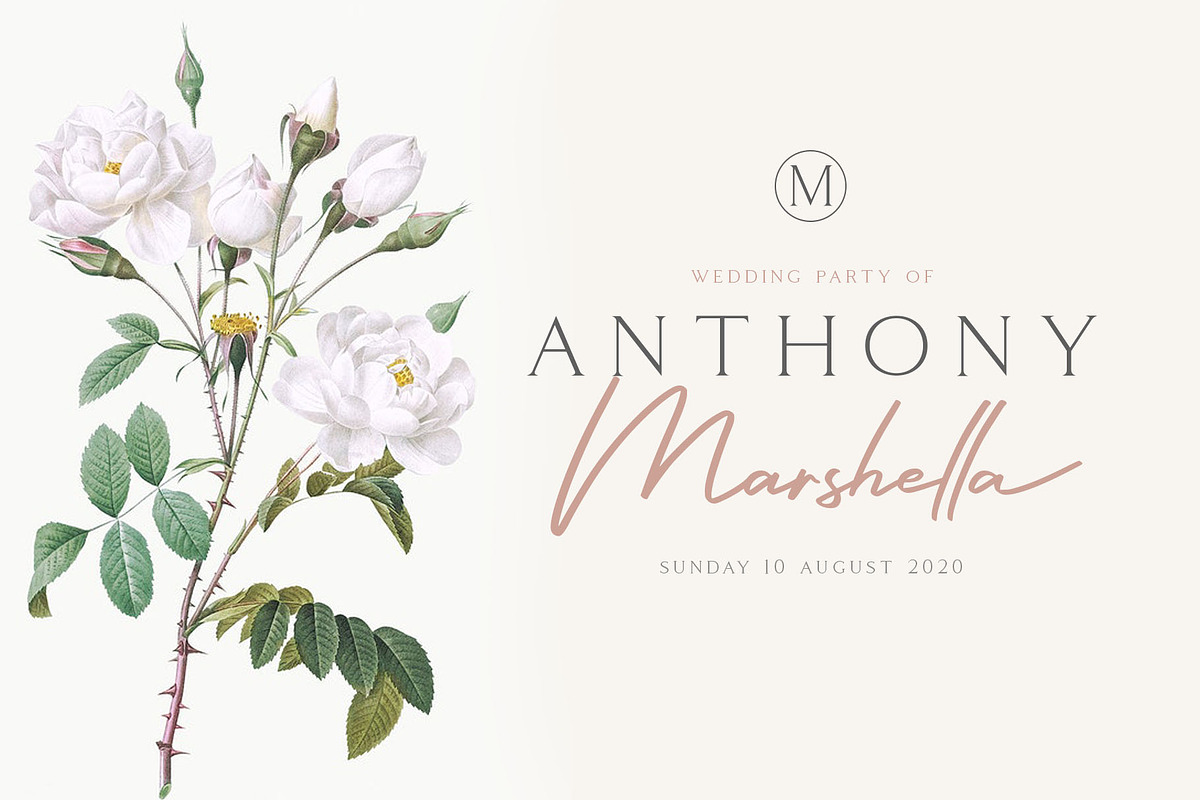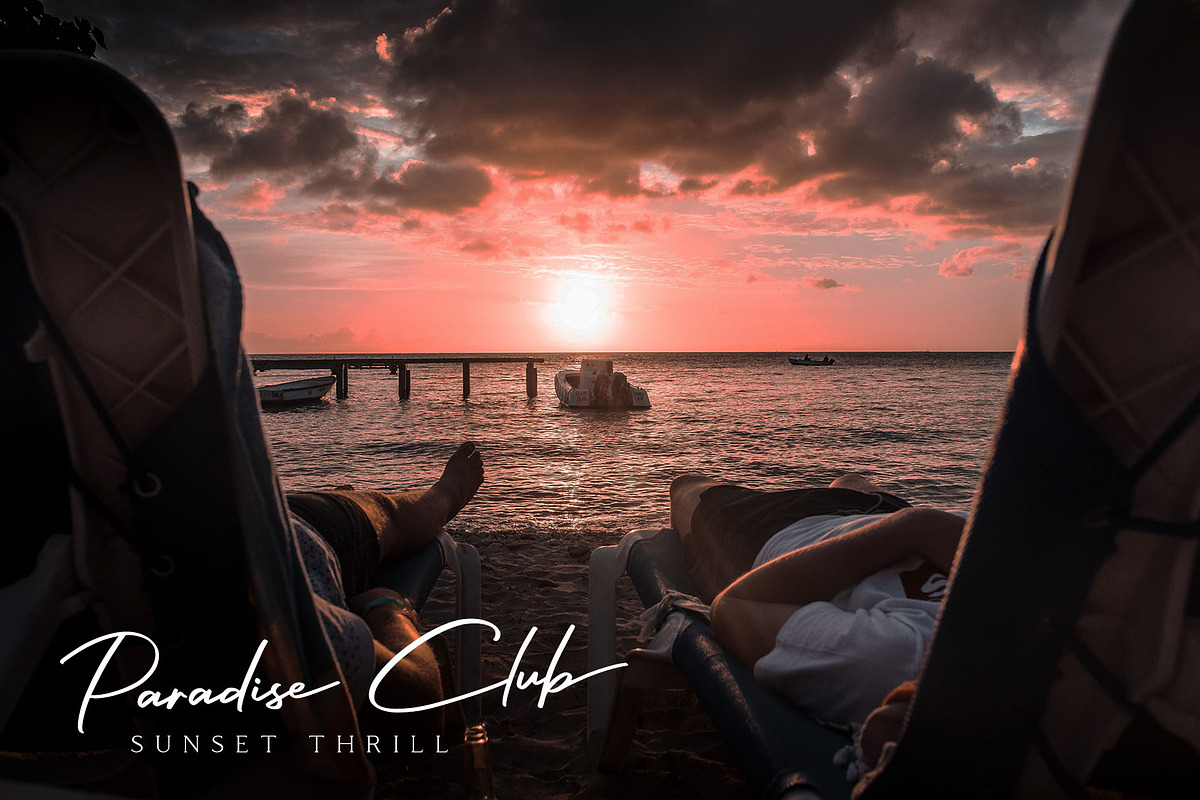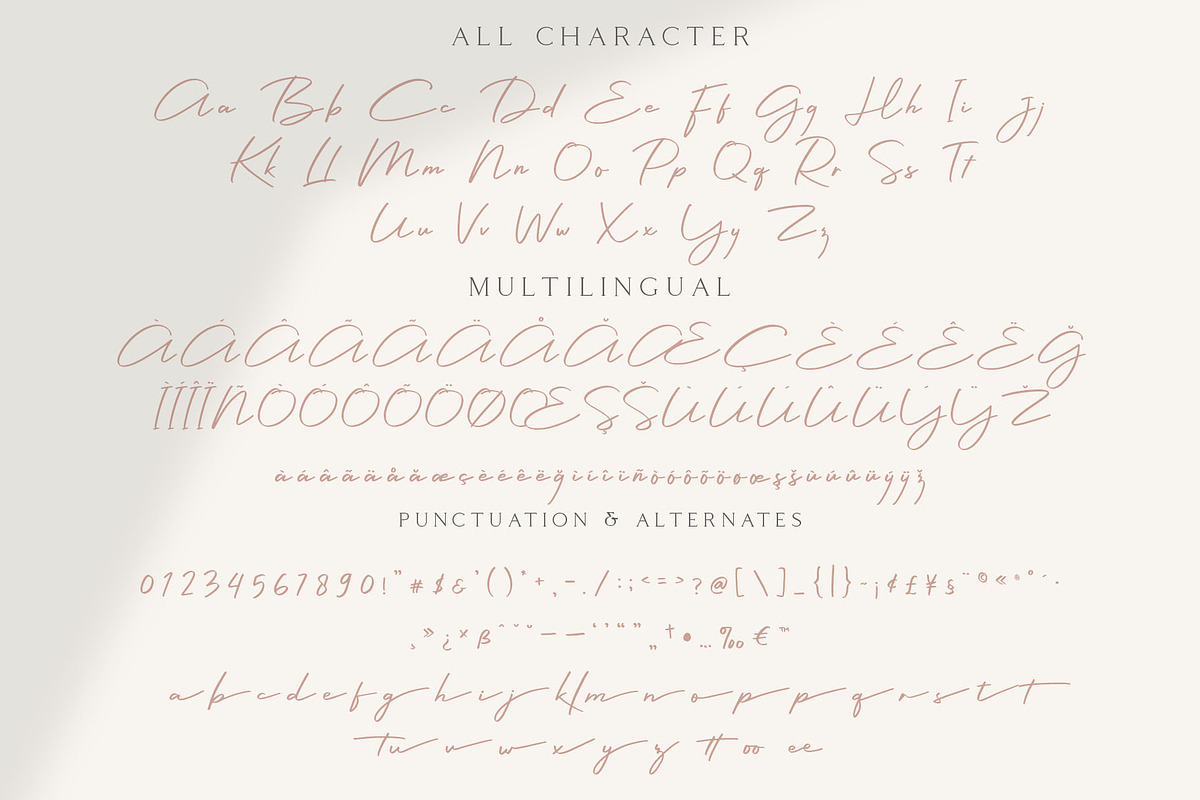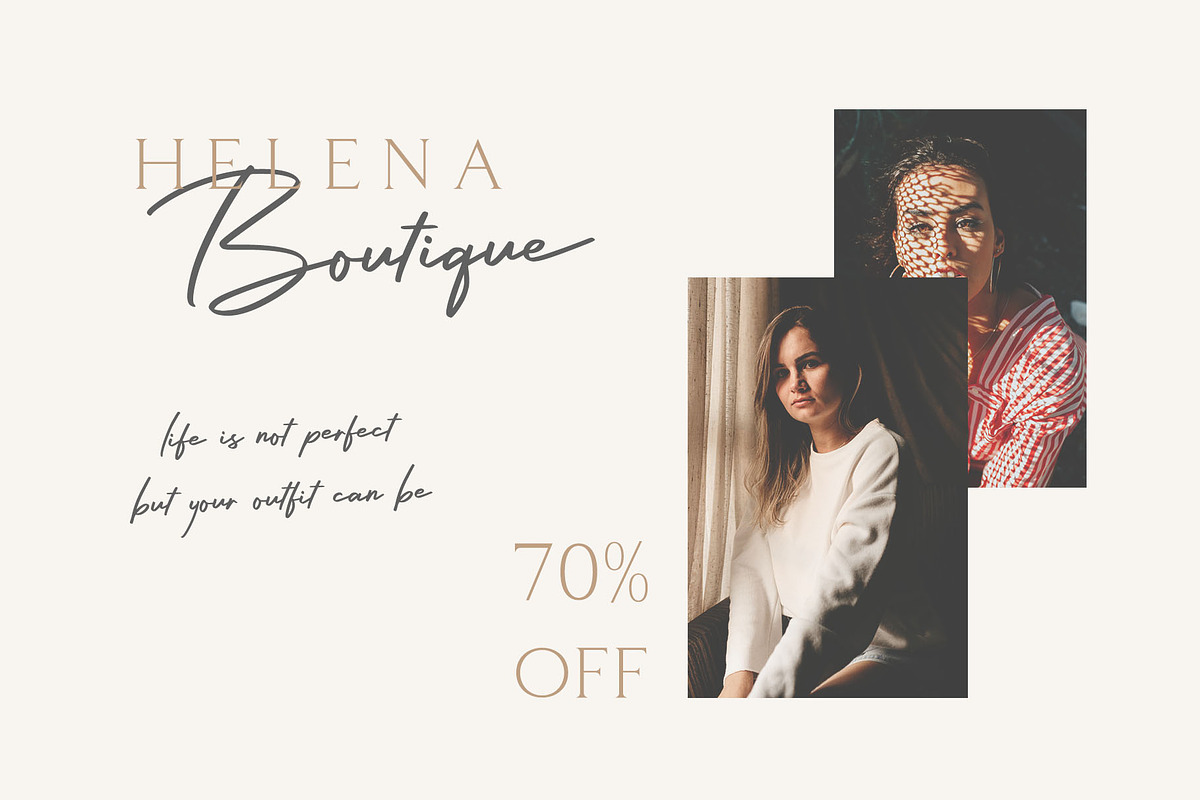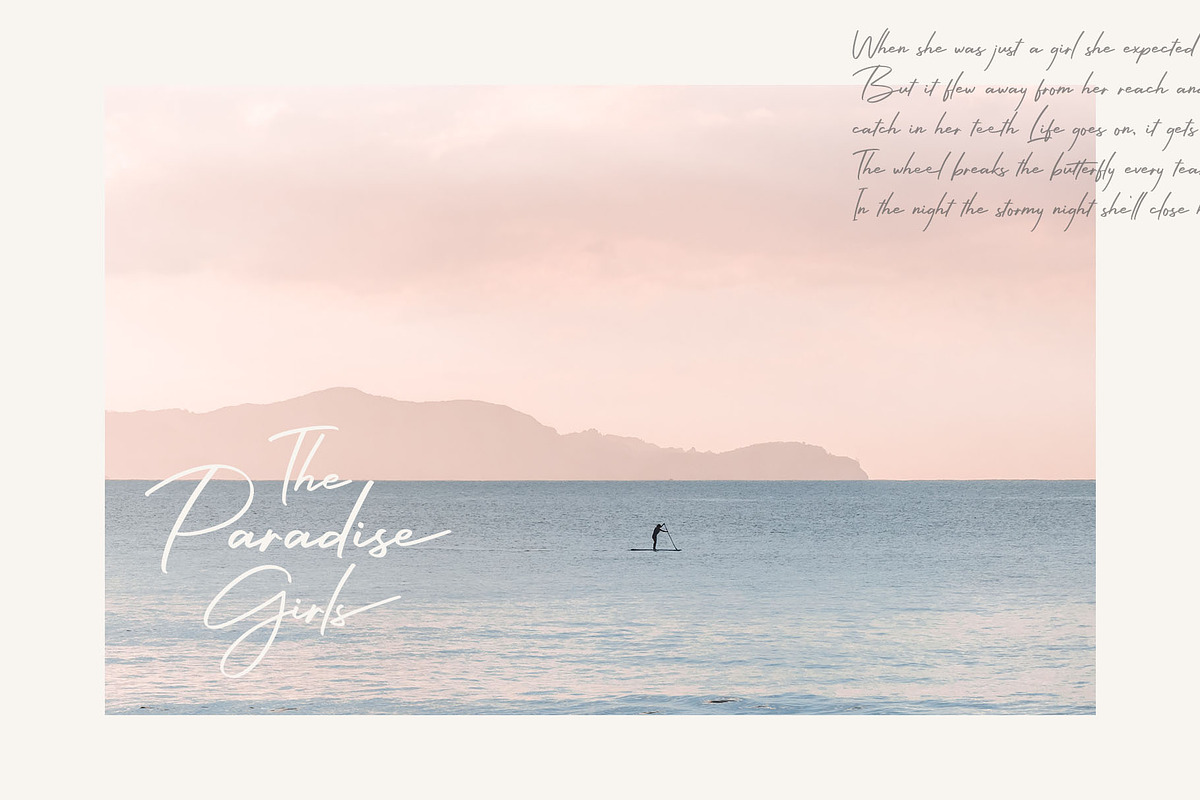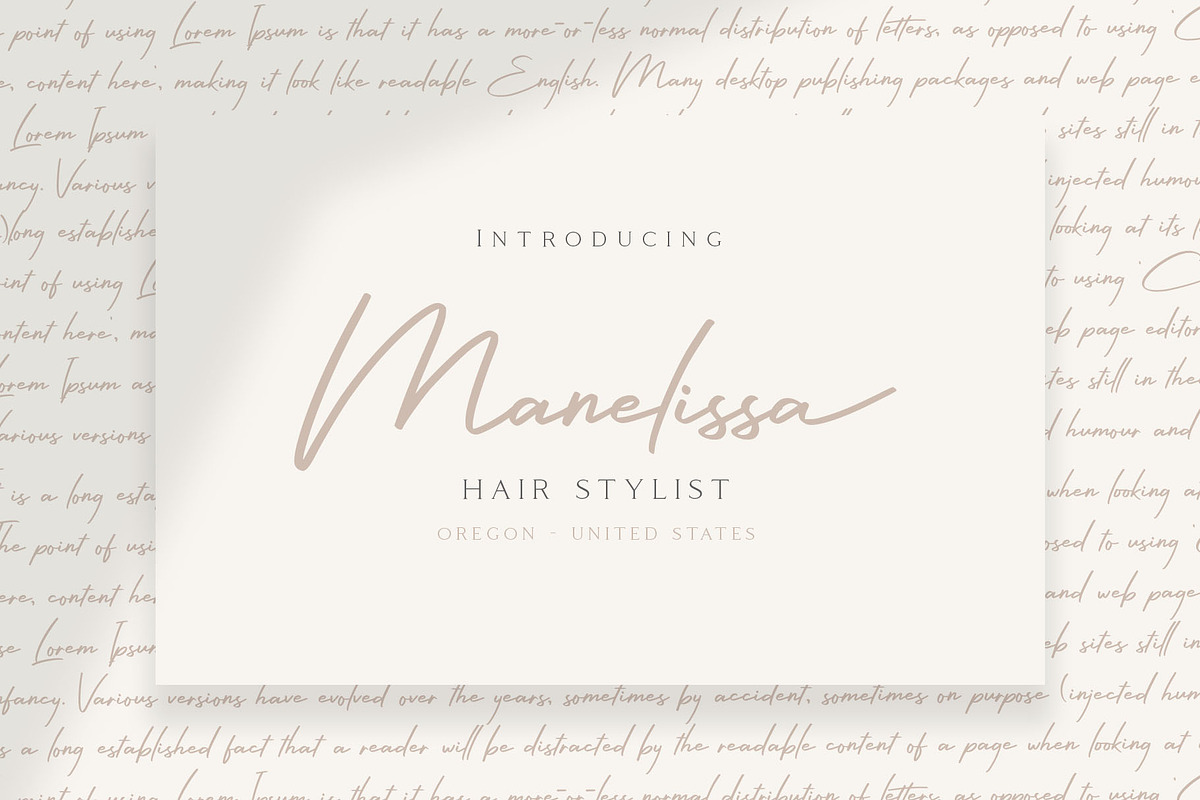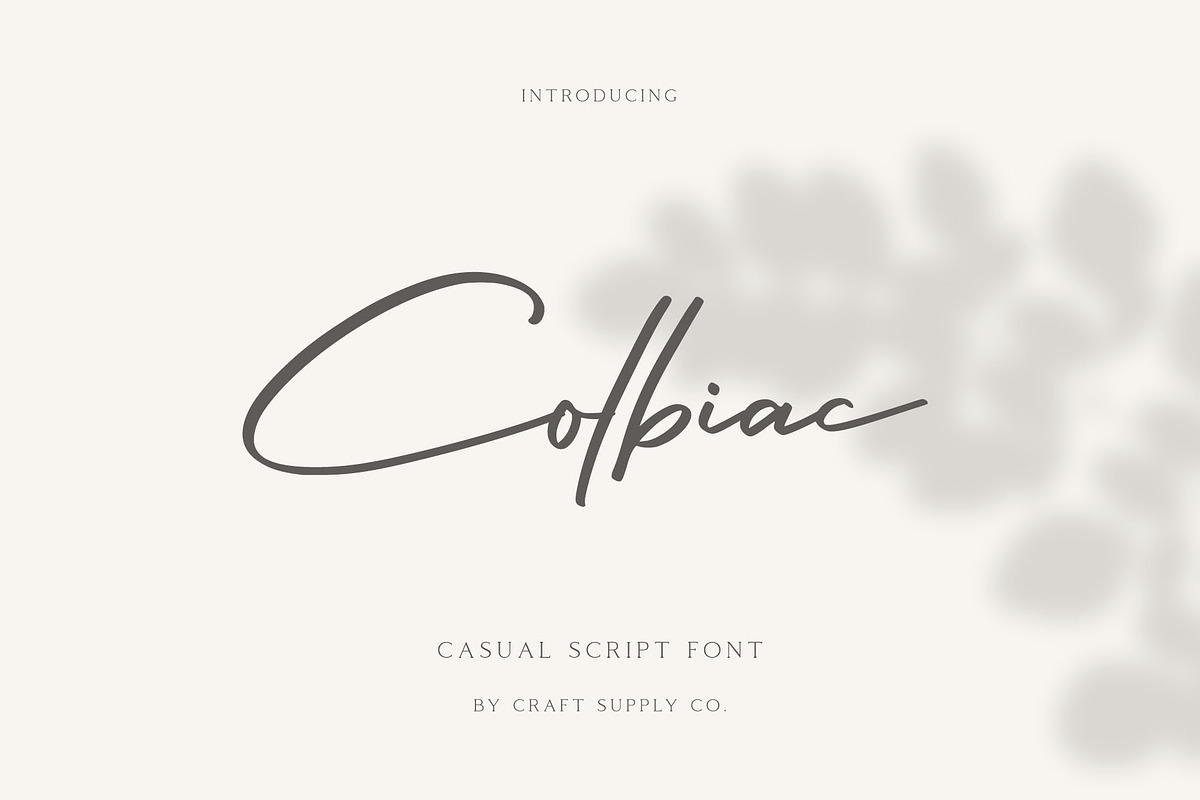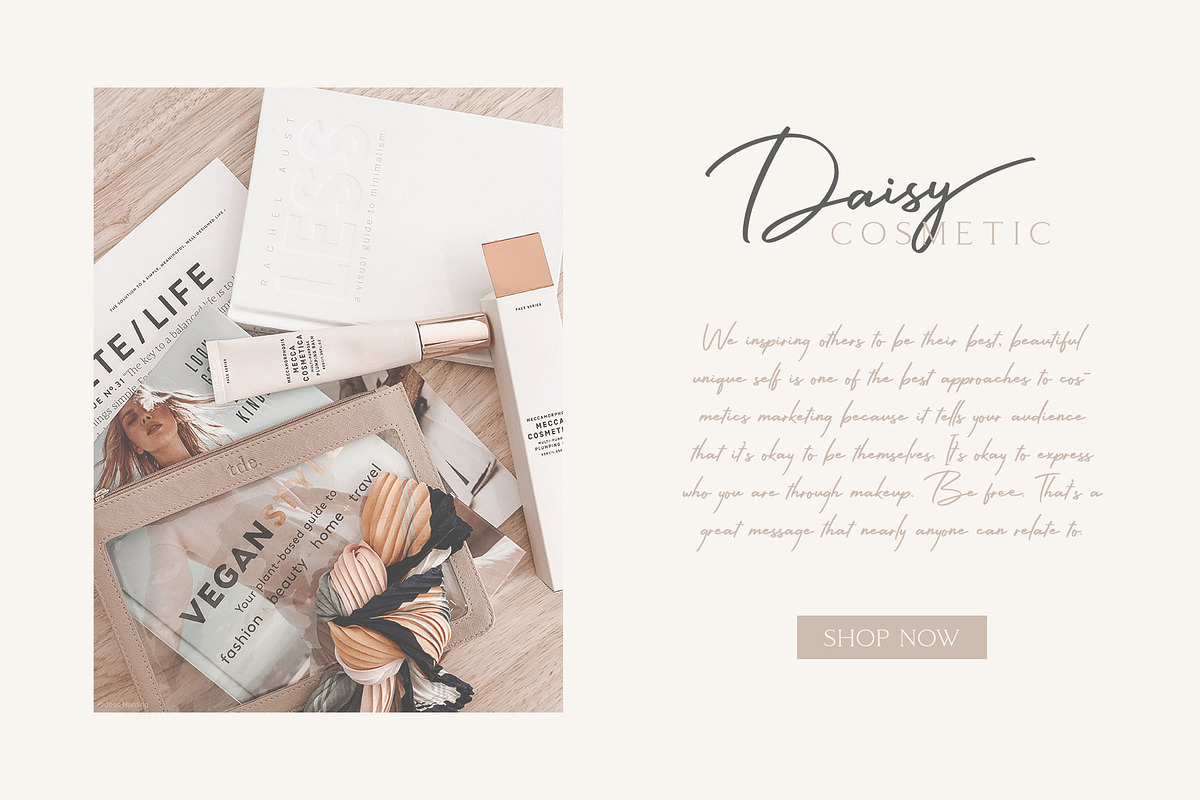
Colbiac - Casual Script Font
Introducing New Font : Colbiac - Casual Script Font
Colbiac - Casual Script Font is an handwritten script font based on the expression of real handwriting. Colbiac - Casual Script Font will work perfectly for fashion, e-commerce brands, trend blogs, wedding boutiques or any business that wants to appear upscale and chic.
Colbiac - Casual Script Font also Suitable for Logo, greeting cards, quotes, posters, branding, name card, stationary, design title, blog header, art quote, typography, art, modern envelope lettering or book design, happening style like handdrawn design or watercolor design theme, craft design, any DIY project, book title, or any purpose to make your art/design project look pretty and trendy.
1. Uppercase & Lowercase
2. Stylistic Alternates
3. Standard & Special Ligatures (tt oo ee)
4. Numerals & Punctuations (OpenType Standard)
5. Accents/Multilingual characters (AÀÁÂÃÄÅCÇDÐEÈÉÊËIÌÍÎÏNÑOØÒÓÔÕÖUÙÜÚÛWYÝŸỲŸÆŒßÞ)
Why Colbiac - Casual Script Font is worth a look
Colbiac - Casual Script Font by Craft Supply Co. fits naturally into Branding, posters, packaging, typography.